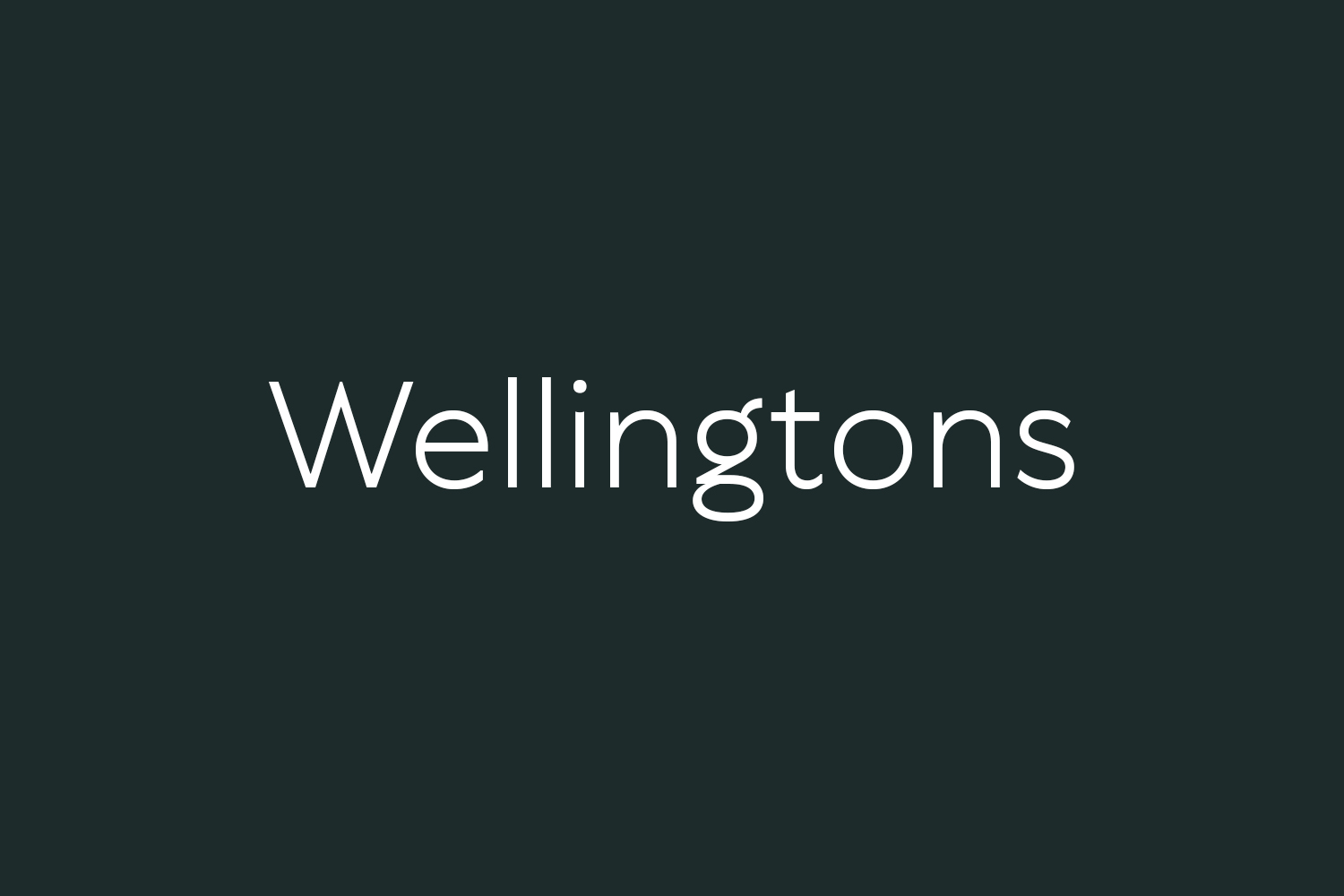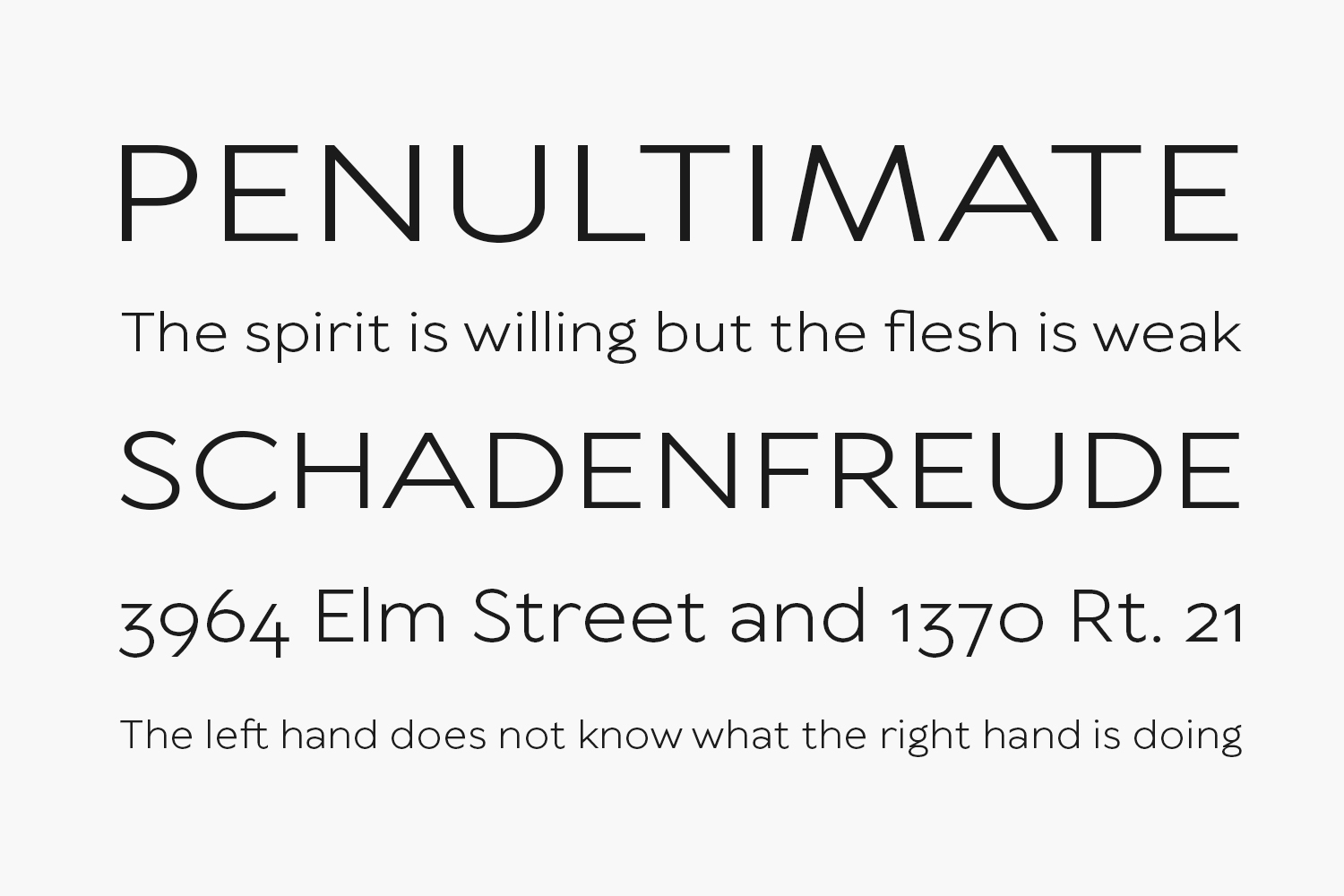
Wellingtons
Wellingtons Free Font Family is a sleek and modern typeface that effortlessly combines classic simplicity with contemporary flair. Its clean lines and absence of decorative flourishes make it a perfect choice for any design that demands clarity and legibility, while its bold and confident appearance also makes it an excellent choice for projects that require a touch of attitude and personality. With its versatile and timeless aesthetic, Wellingtons Free Font is a go-to choice for designers who value simplicity, clarity, and style.
Designed by TypeType Foundry